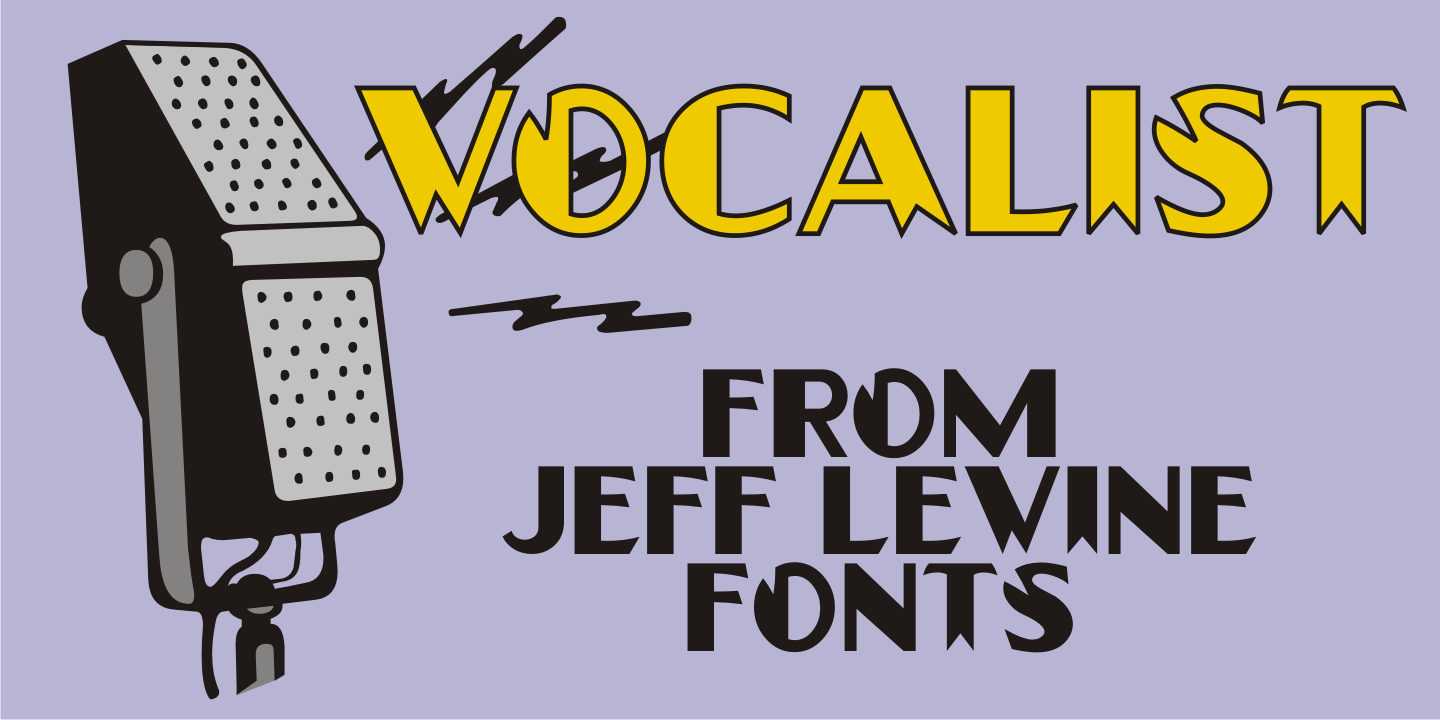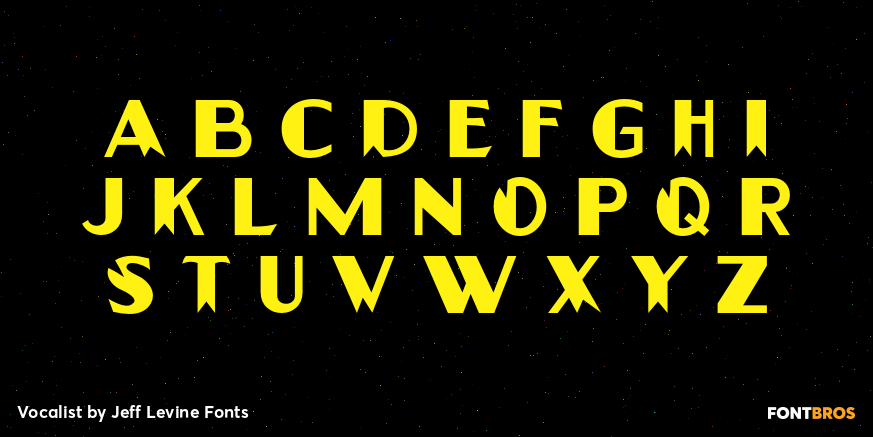
Vocalist
Vocalist JNL is a bit of a novelty Art Deco typeface based on hand lettering from some 1940s sheet music. Using the classic 'thick and thin' style of the day, a number of letters and numbers have wedges cut out of their designs.